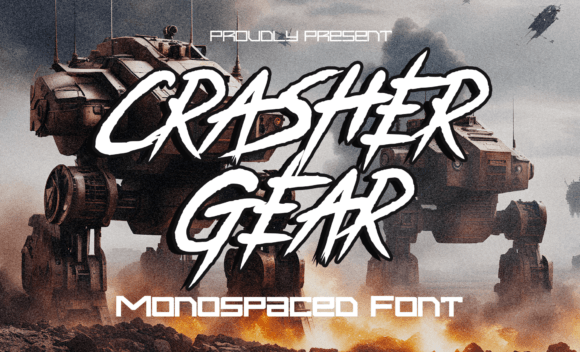
Unleash your créativité with the mesmerizing "Crasher Gear," a font that holds the power to transform your designs into uncanny experiences. Imagine your words dancing across the screen with the raw, unbridled energy of a street artist's scrawl. Every letter carries the spirit of rebellion, the boldness to break free from the ordinary and embrace the unconventional.
Step into a realm where chaos meets control as "Crasher Gear" spells your messages with its monospaced, urban-edged design. With meticulous attention to detail, this font blends the charm of handwritten imperfections with the precision of digital artistry. Its unique grunge-inspired aesthetics evoke a sense of dystopian futurism, making every word a statement and every design a masterpiece.
With its multilingual prowess, "Crasher Gear" effortlessly transcends boundaries, allowing your creations to resonate with a global audience. Unleash your imagination and craft messages that speak to the hearts of people worldwide, erasing linguistic barriers and uniting them under the banner of your bold expression.
Dive into the depths of creative possibilities with six distinct styles—Regular, Italic, Oblique Italic, Bold, Bold Italic, and Bold Oblique Italic. Each style adds a new dimension to your designs, from the untamed wildness of the Regular to the striking elegance of the Bold. Play with combinations, mix and match, and discover a symphony of visual expression that will leave your audience spellbound.
Imagine your posters exploding with energy, your marketing materials radiating raw appeal, and your titles commanding attention like never before. T-shirt designs will leap off the fabric, becoming wearable works of art. YouTube thumbnails will ignite curiosity and create anticipation with every pixel. Games will immerse players in worlds that feel tangible, with every line of text adding depth and intrigue.
"Crasher Gear" is more than just a font; it's an artistic journey, an invitation to break free from the mundane and embrace the extraordinary. It's a tool that empowers you to create designs that ignite emotions, provoke thought, and leave an indelible mark on the minds of all who encounter them.
Dare to be different. Dare to be bold. Dare to embrace the untamed spirit of "Crasher Gear" and watch your designs evolve into unforgettable experiences. Your creativity has no limits, and with this extraordinary font as your ally, the world is your canvas. Unleash the power of "Crasher Gear" today and redefine the boundaries of design.